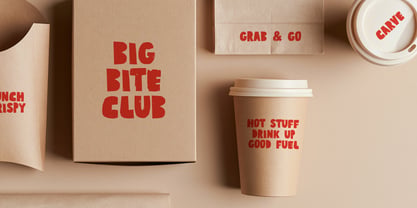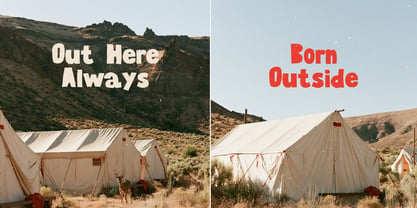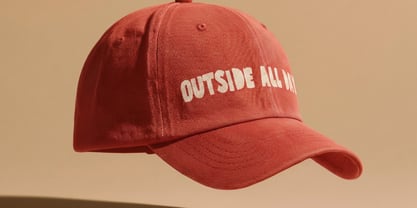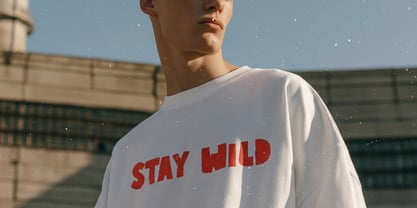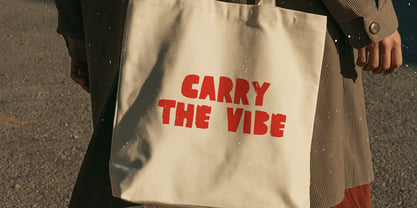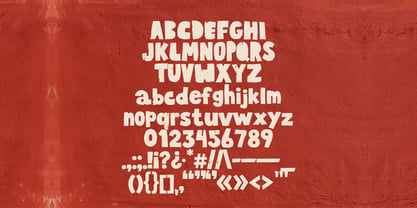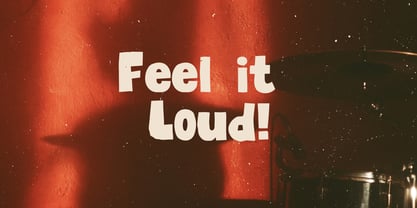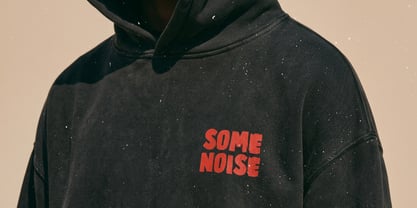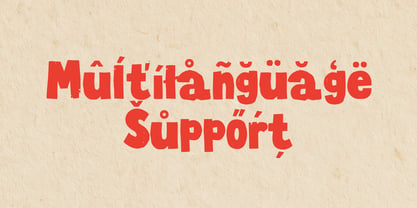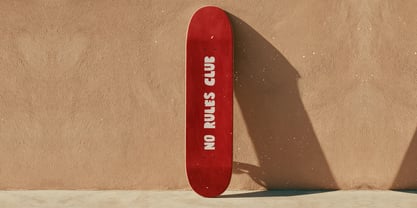
Kavro
Die Schriftfamilie Kavro wurde von Anton Didenko entworfen und von Kavoon veröffentlicht. Kavro enthält 1 Stile. Mehr über diese Familie
CARVE Rough Display Font
Karvo is a bold, rough display typeface with raw edges, irregular shapes and a strong handmade character. Its distressed letterforms give every word an expressive, energetic look inspired by hand-cut lettering, vintage posters, screen printing and DIY graphics.
Designed for bold headlines, posters, branding, packaging, merchandise, music artwork, streetwear, food projects, editorial layouts and creative campaigns.
Karvo works best at large sizes where its rough texture, irregular details and bold personality can stand out.